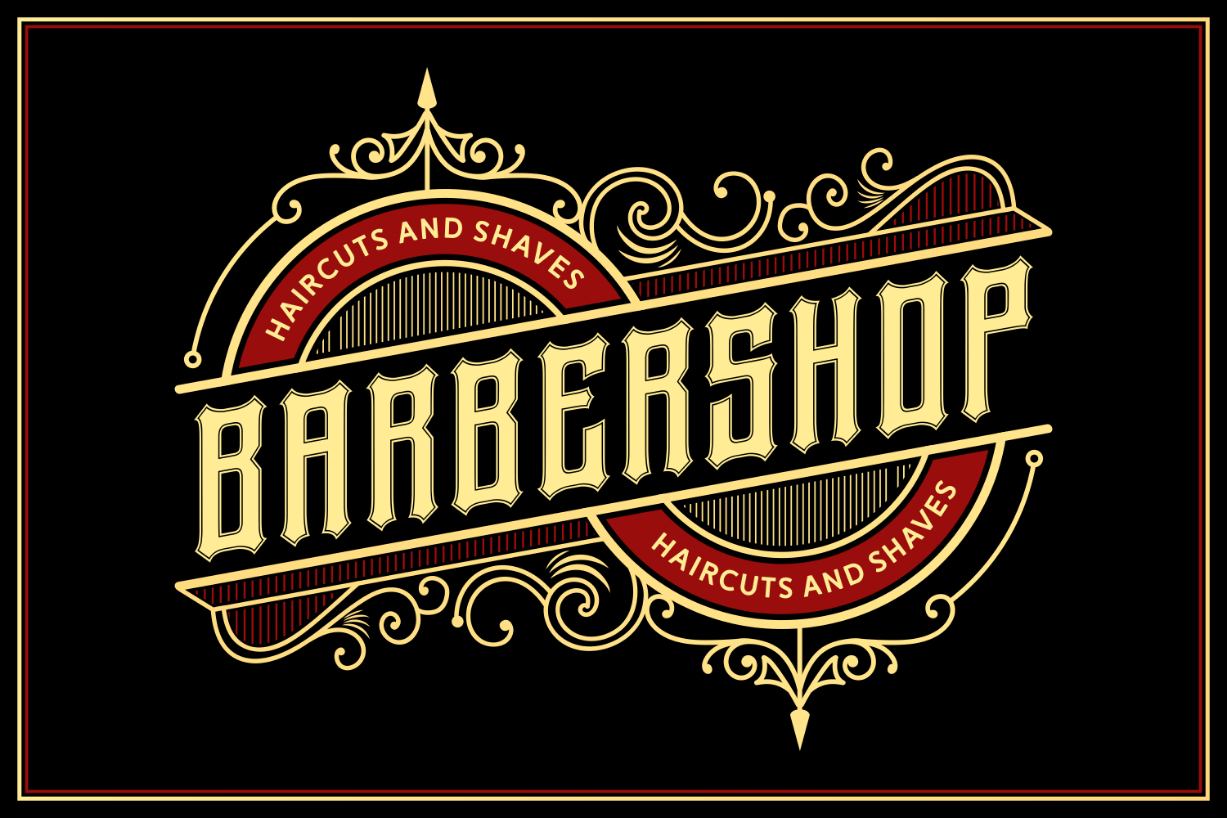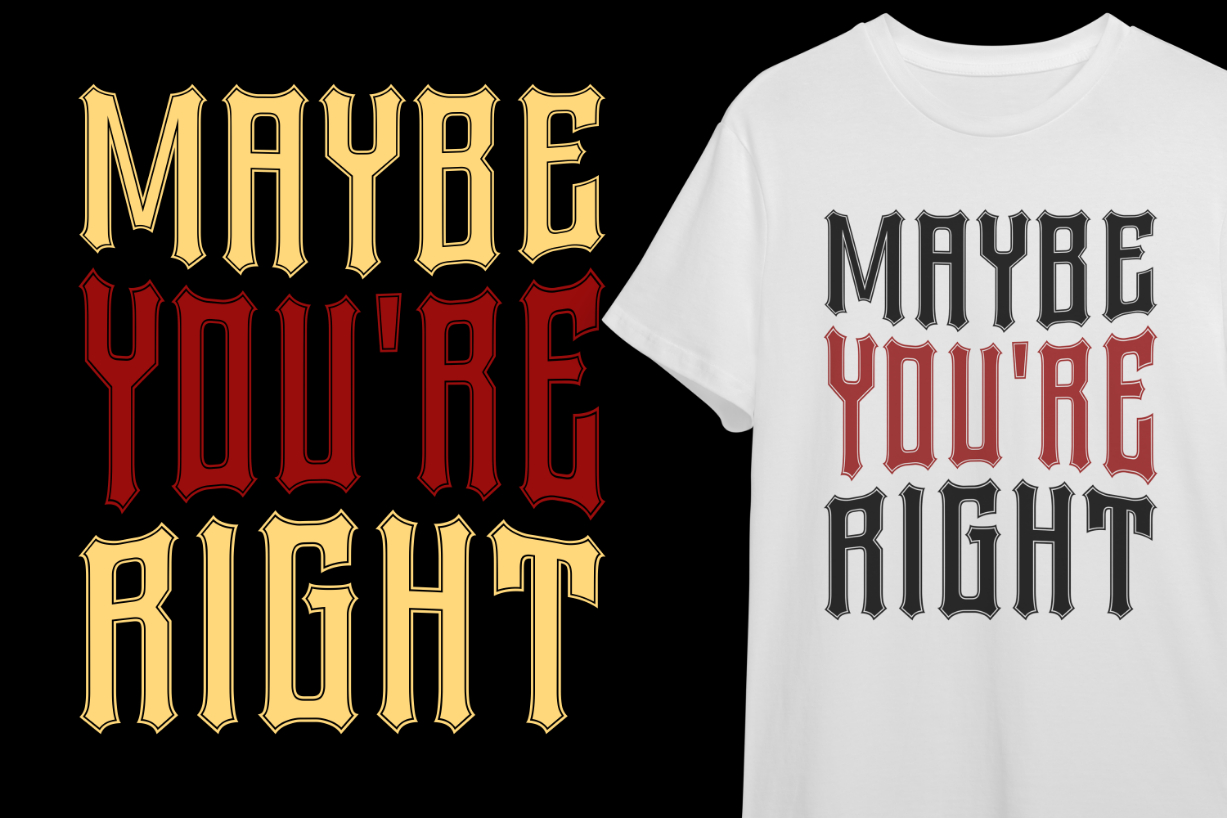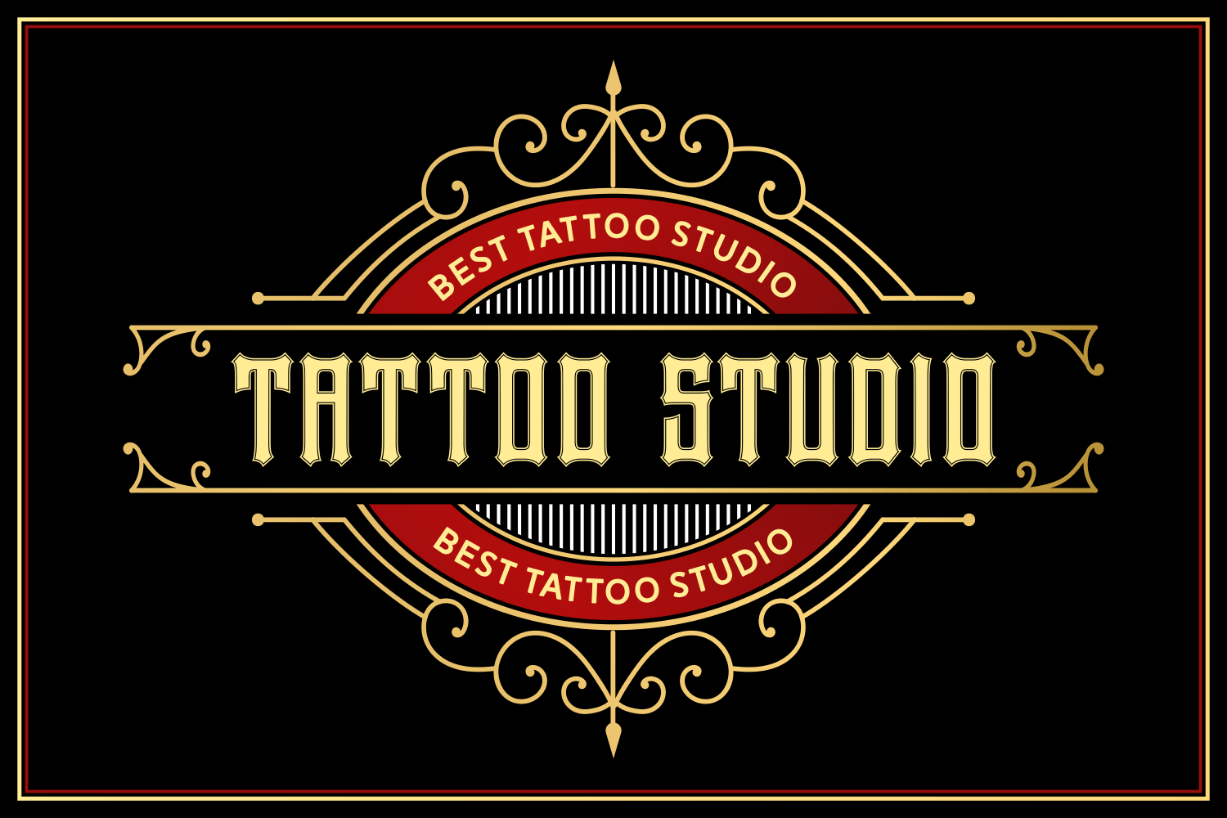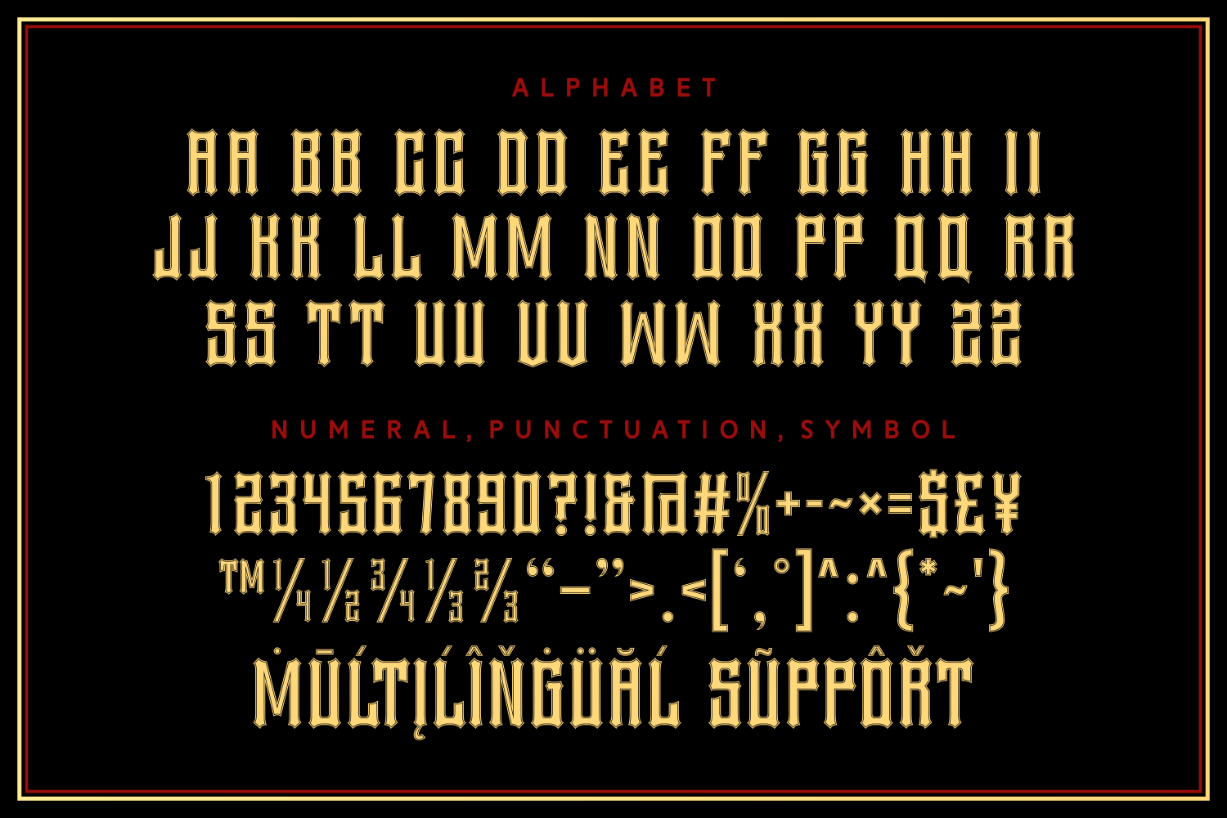
Perfecto Enough Font
About Perfecto Enough Font
Perfecto Enough is a remarkable tattoo-style blackletter font. Showcasing a classic, vintage look, this captivating typeface has the potential to elevate any creation. It looks great on logos, posters, banners, signage, t-shirts, advertisements, product packaging, headlines, and more.